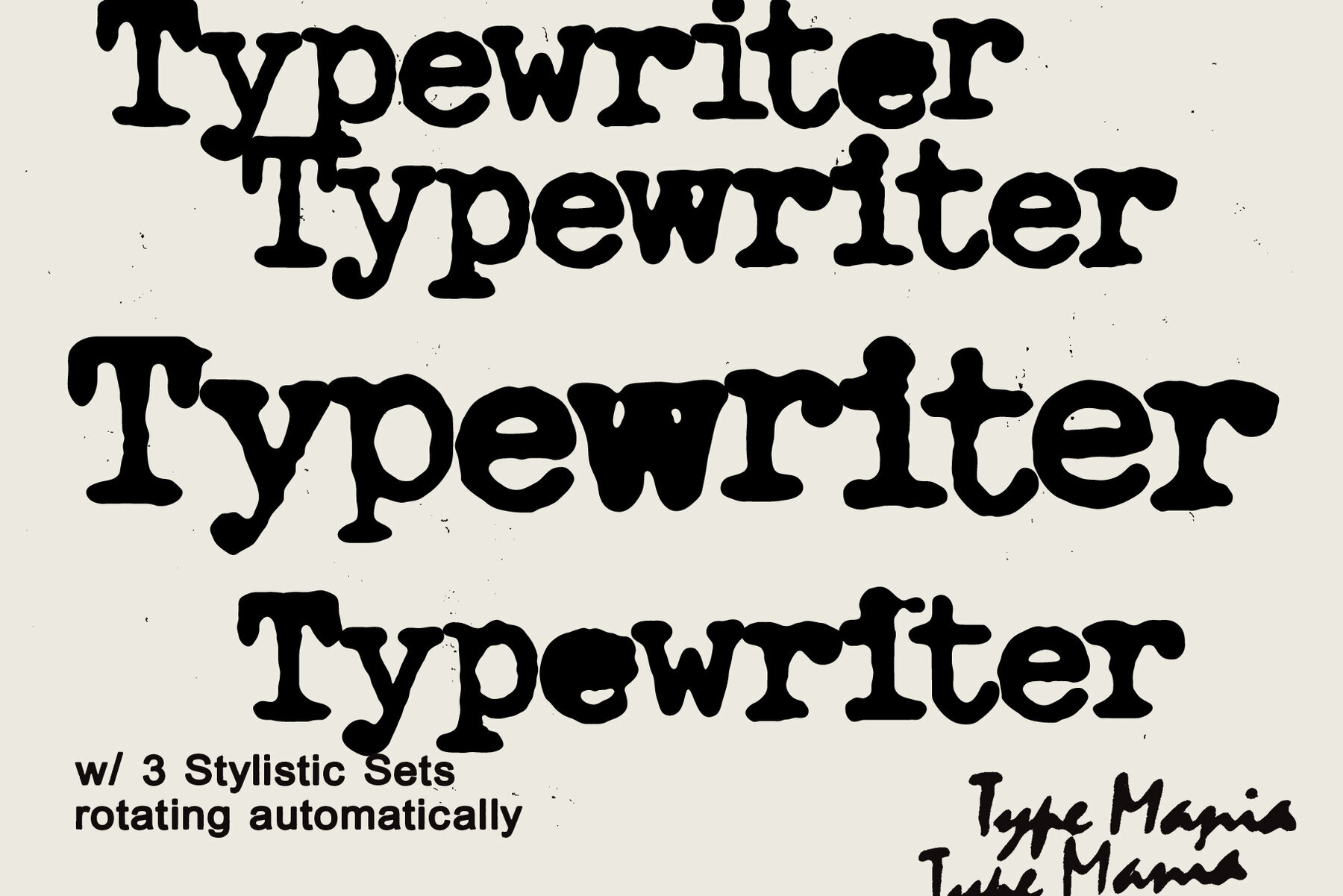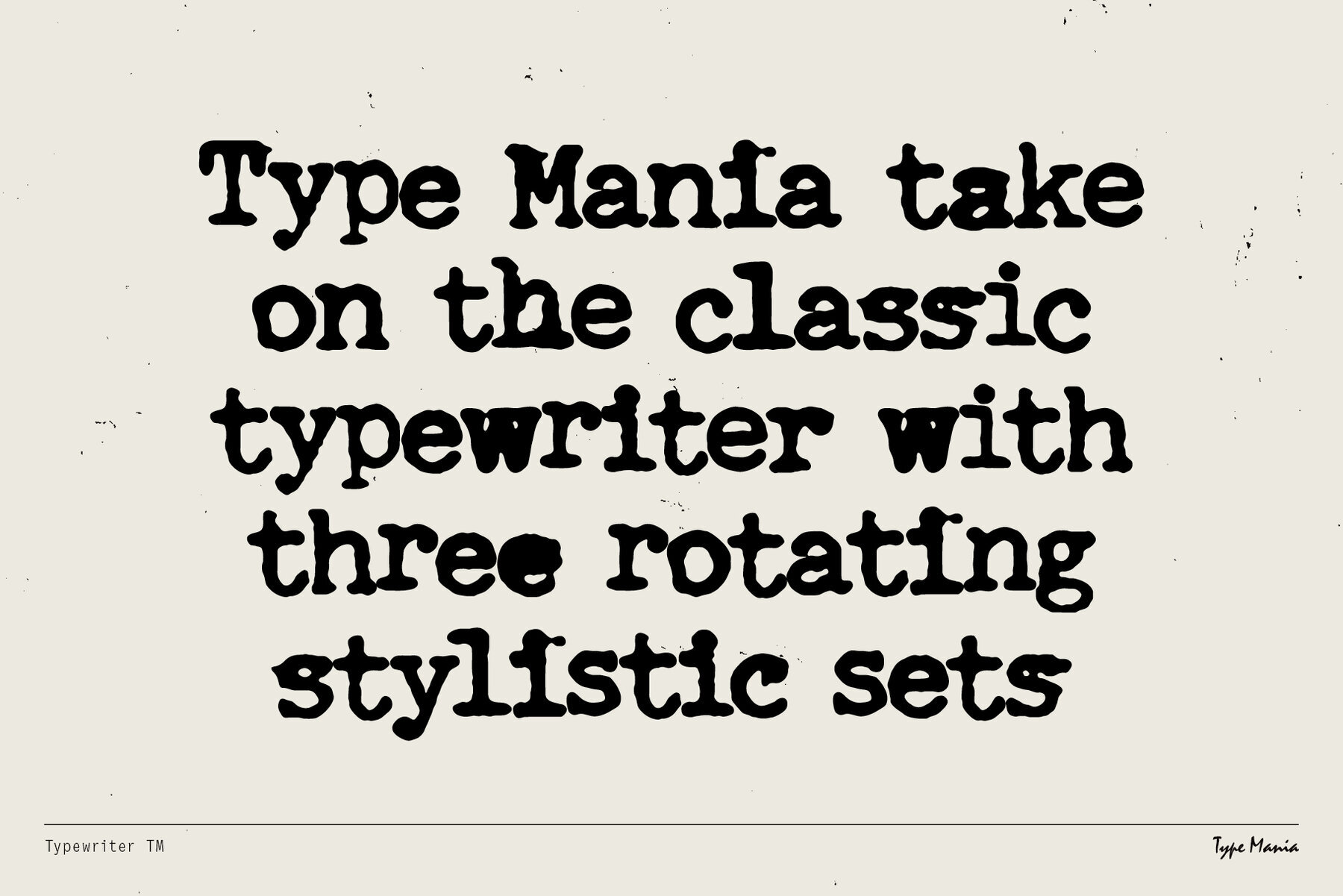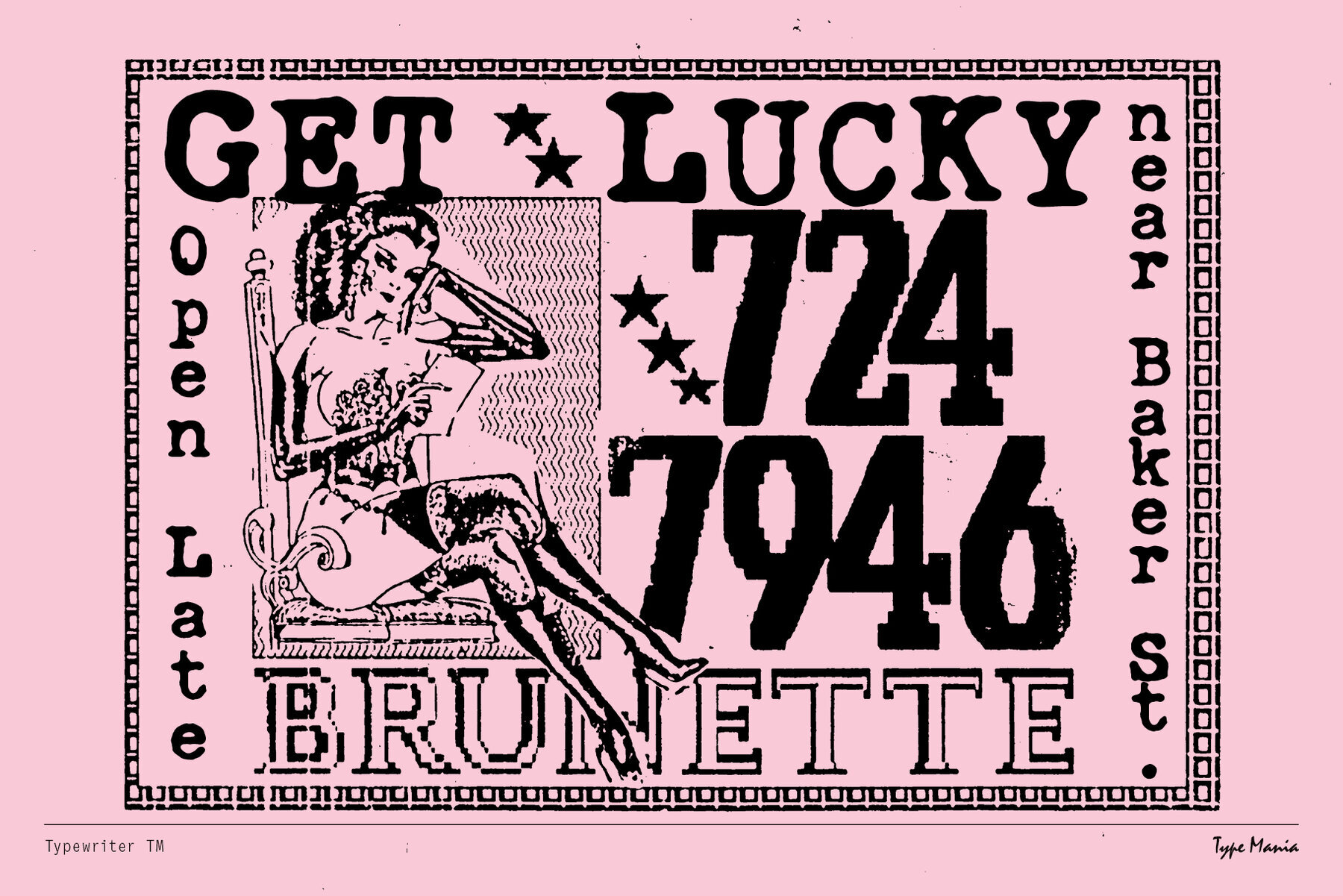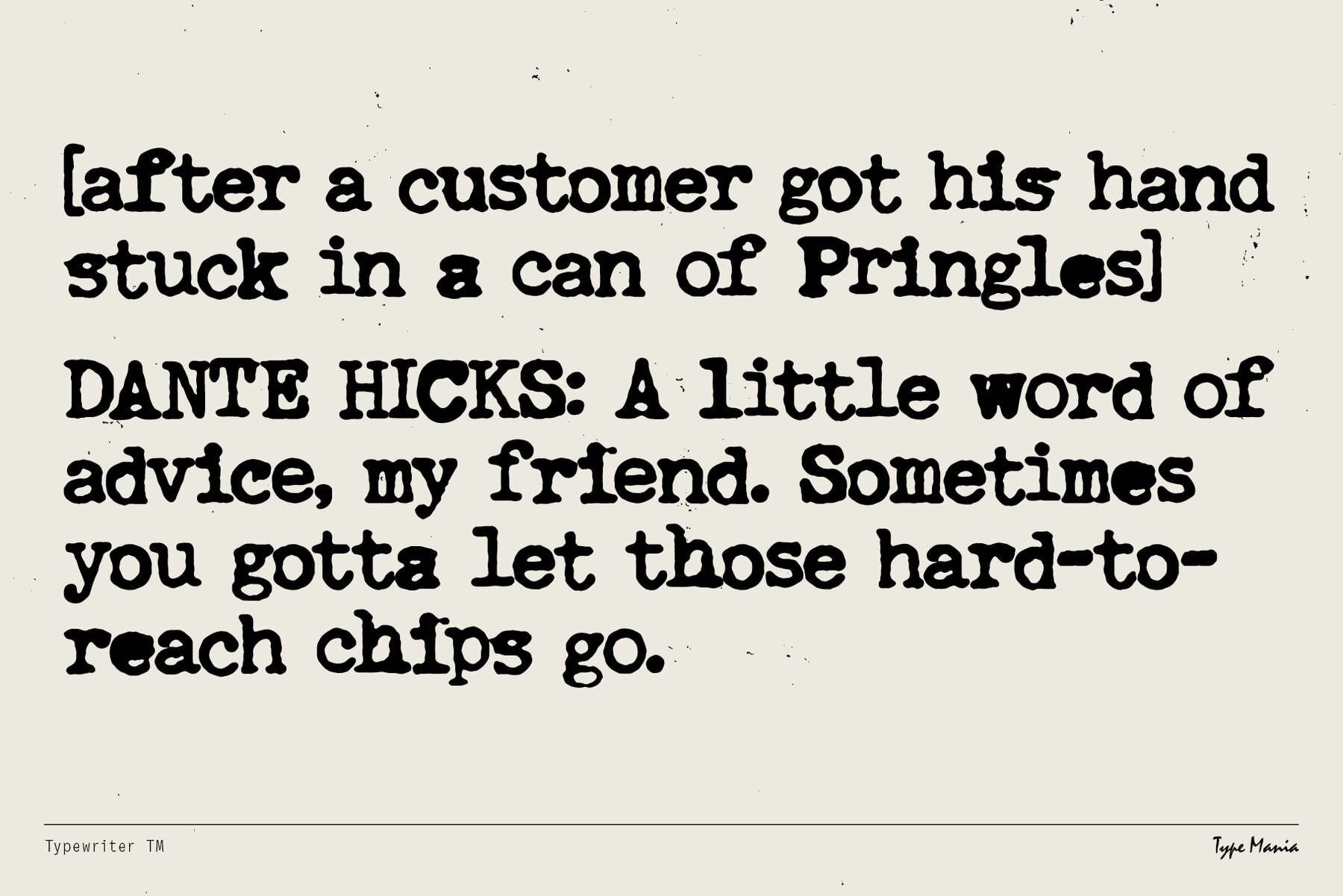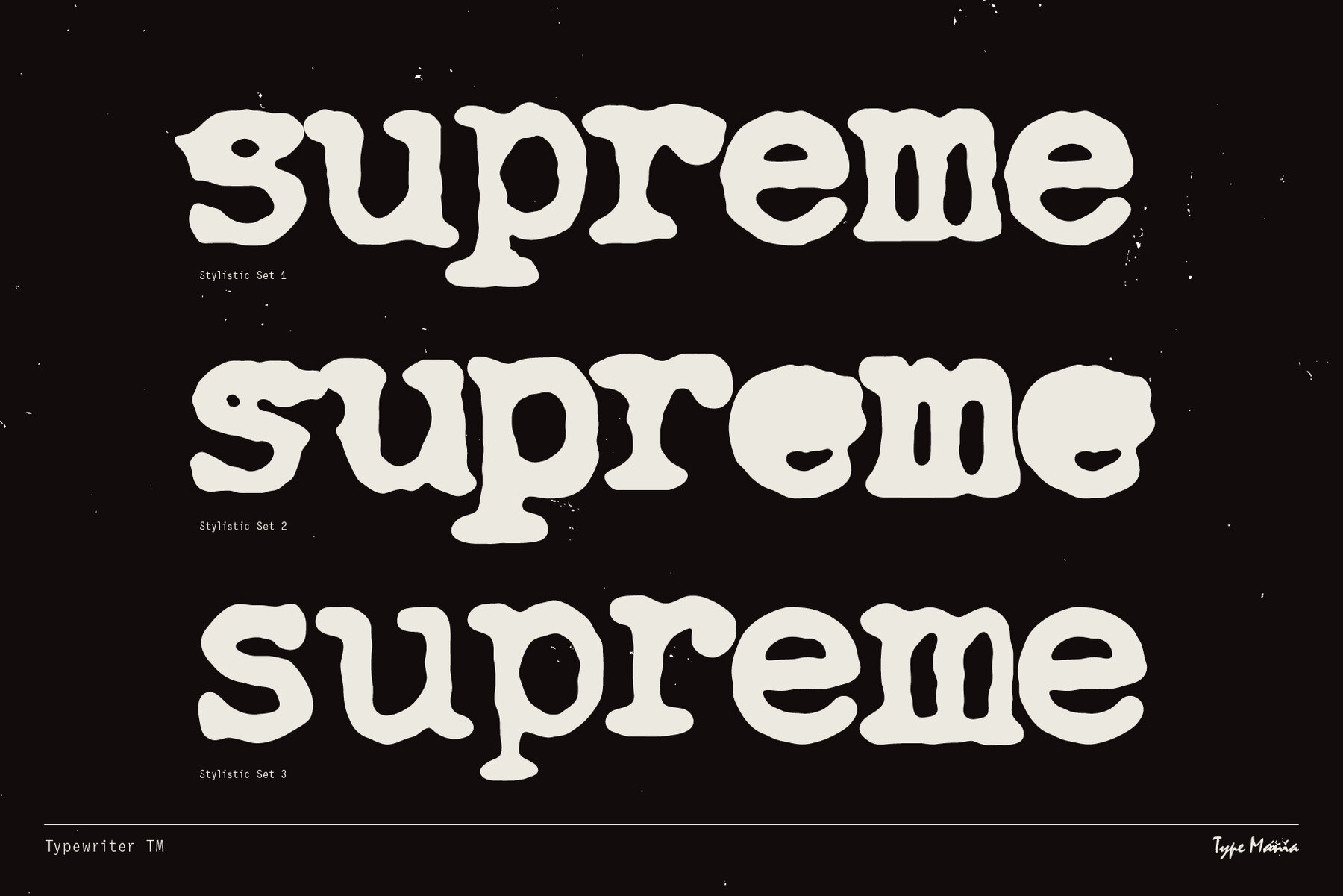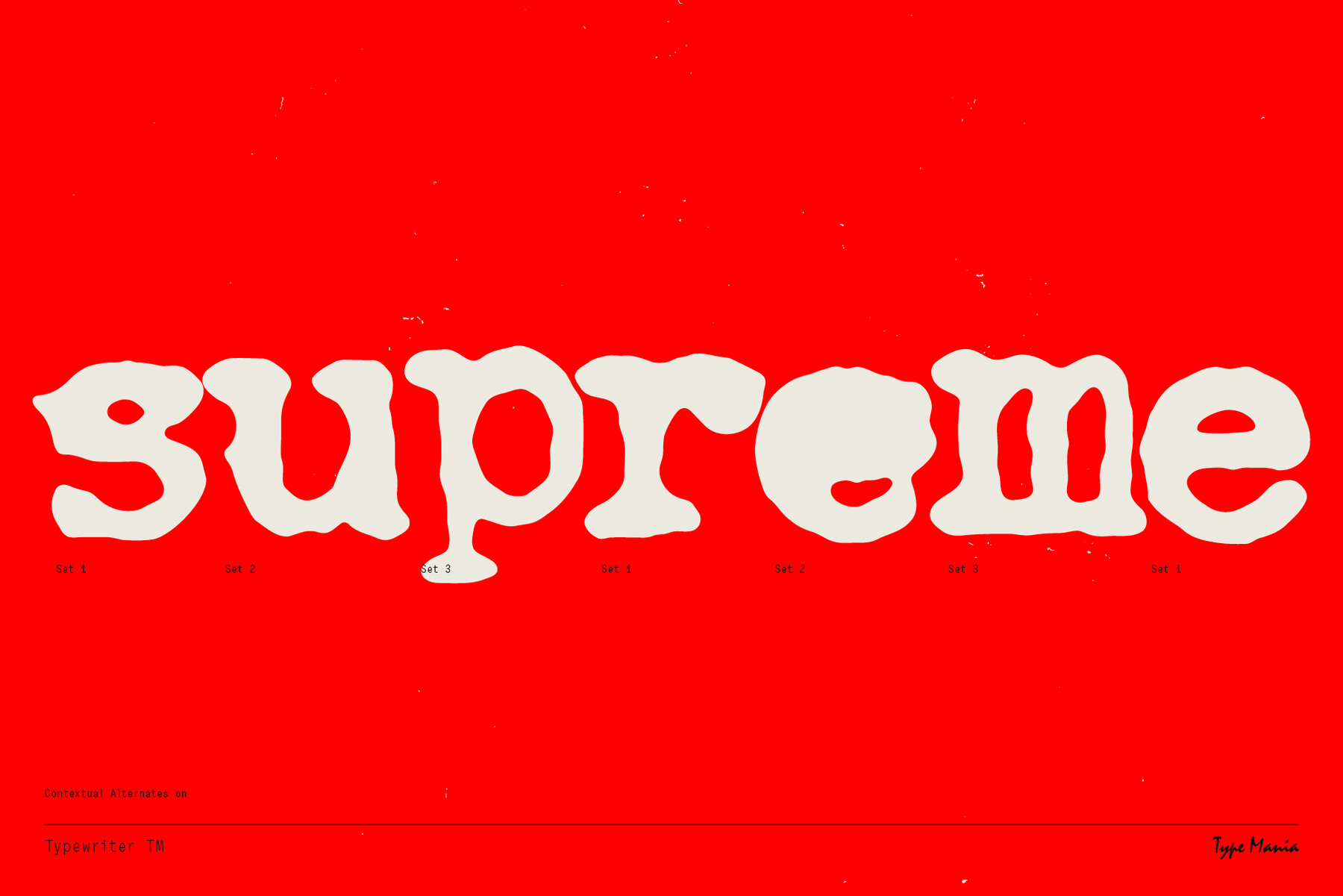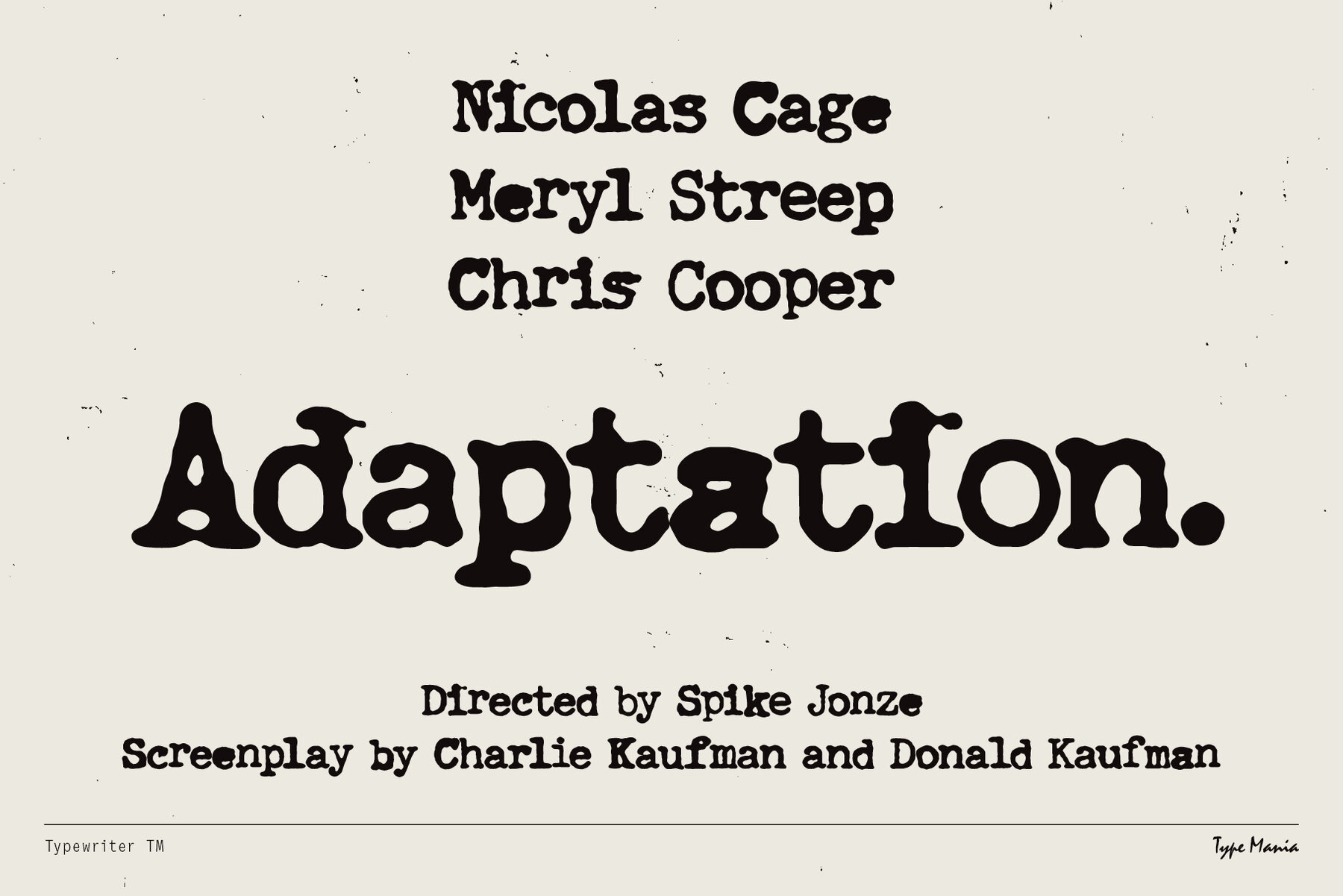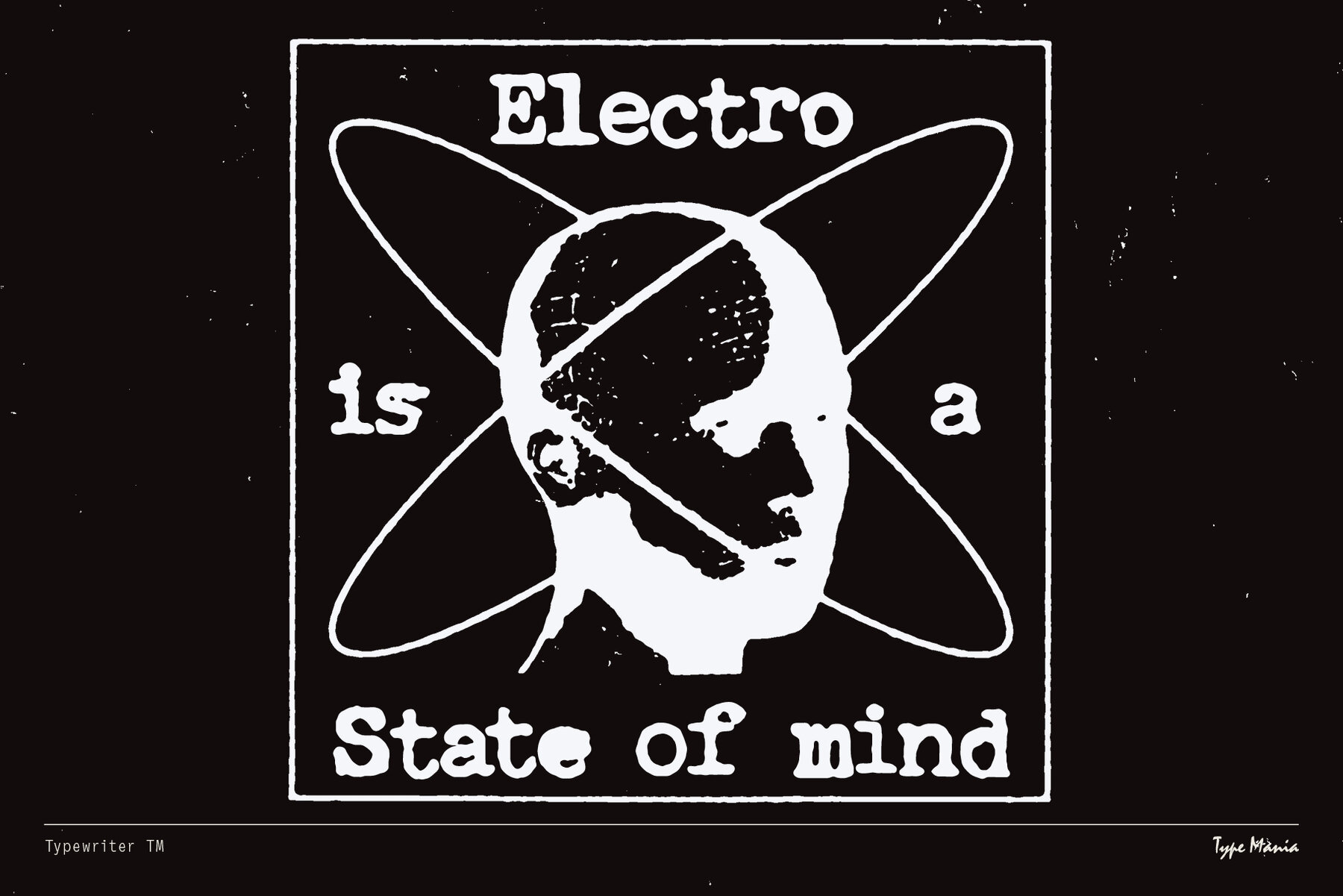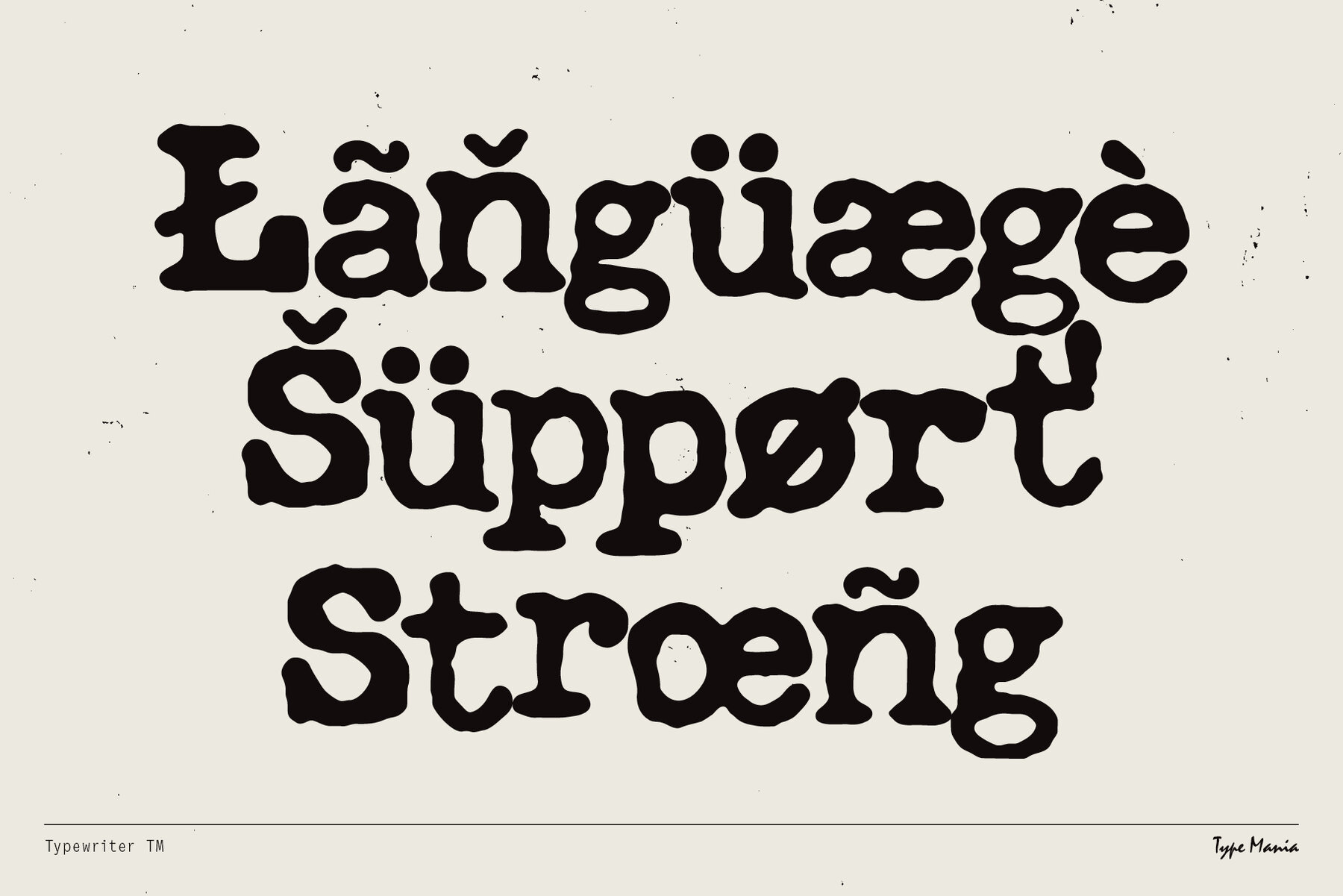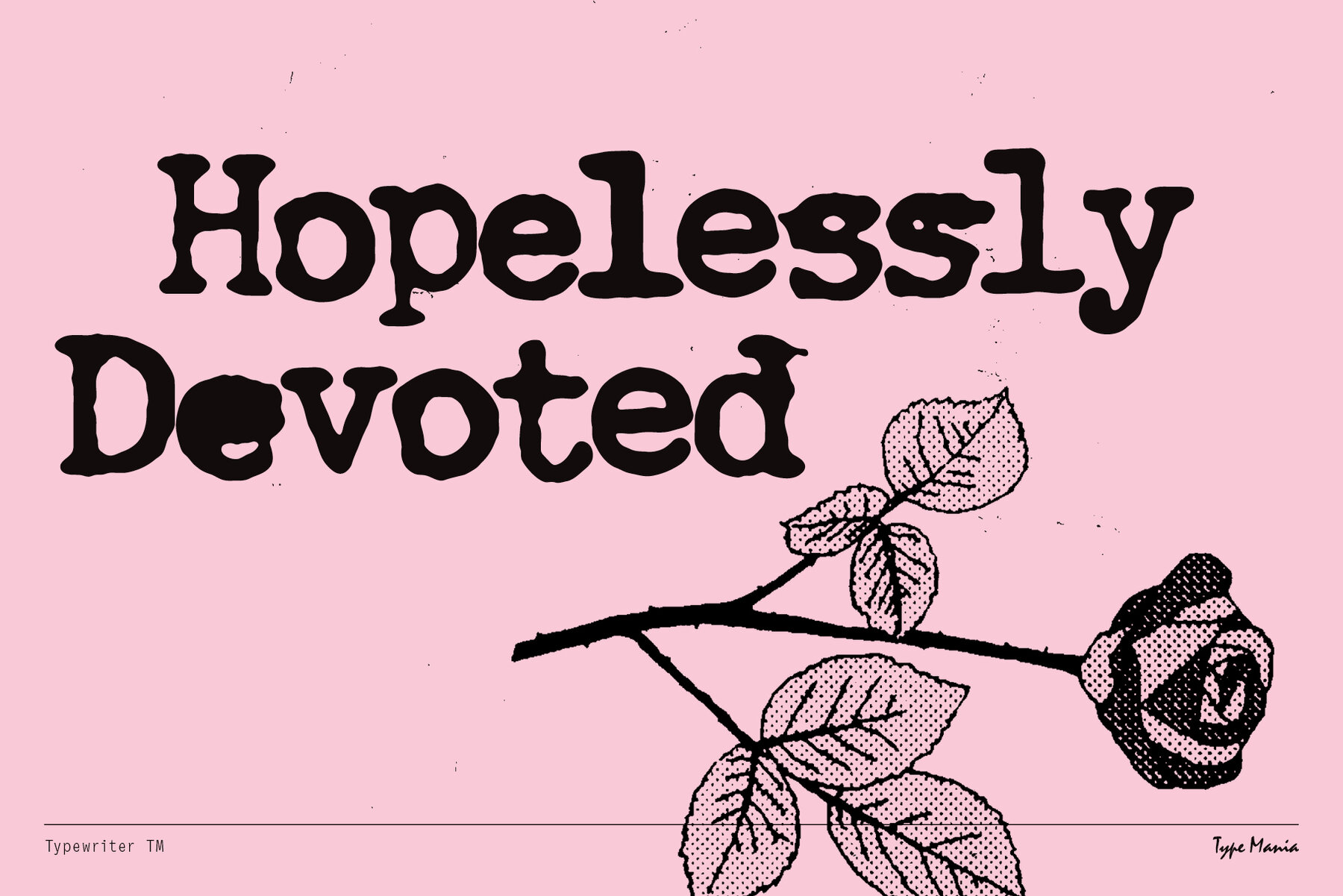
Typewriter TM Font
Typewriter TM
Typewriter TM breathes new life into the classic distressed typewriter aesthetic with 3 stylistic sets rotating automatically. Ch-Check it out... OpenType features Languages Graphic Design is Easy (with Type Mania)®